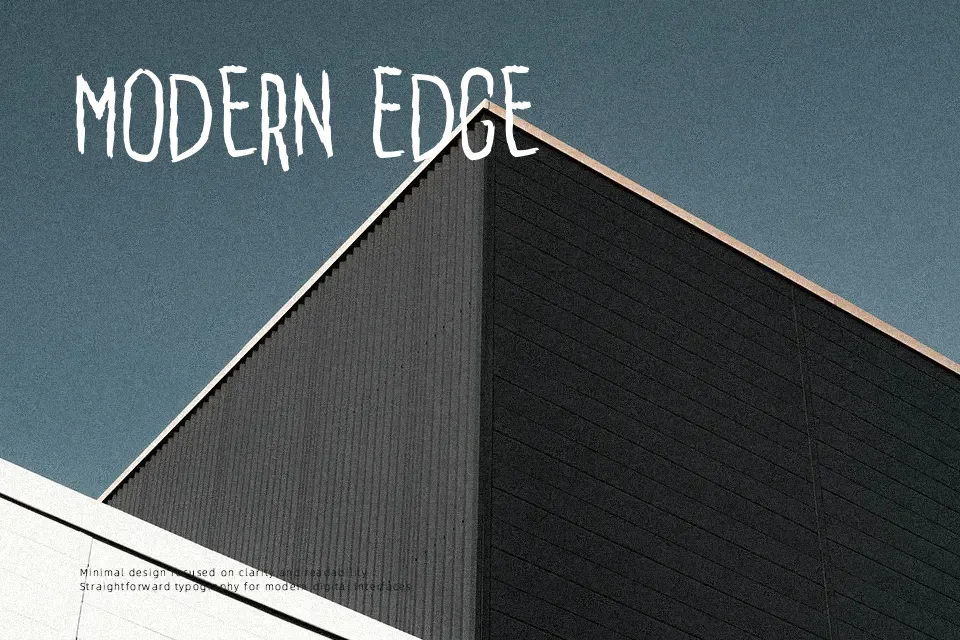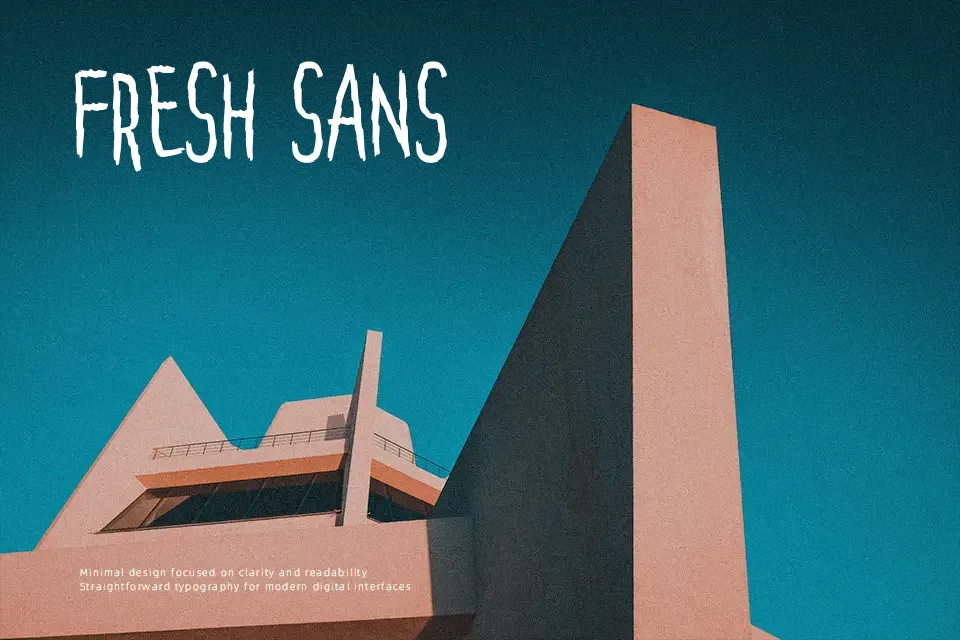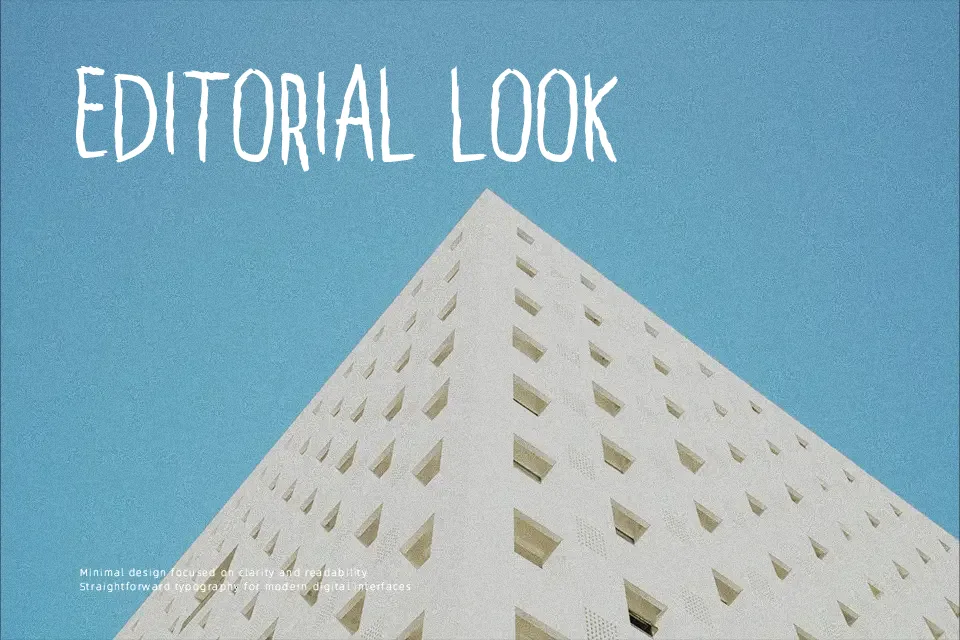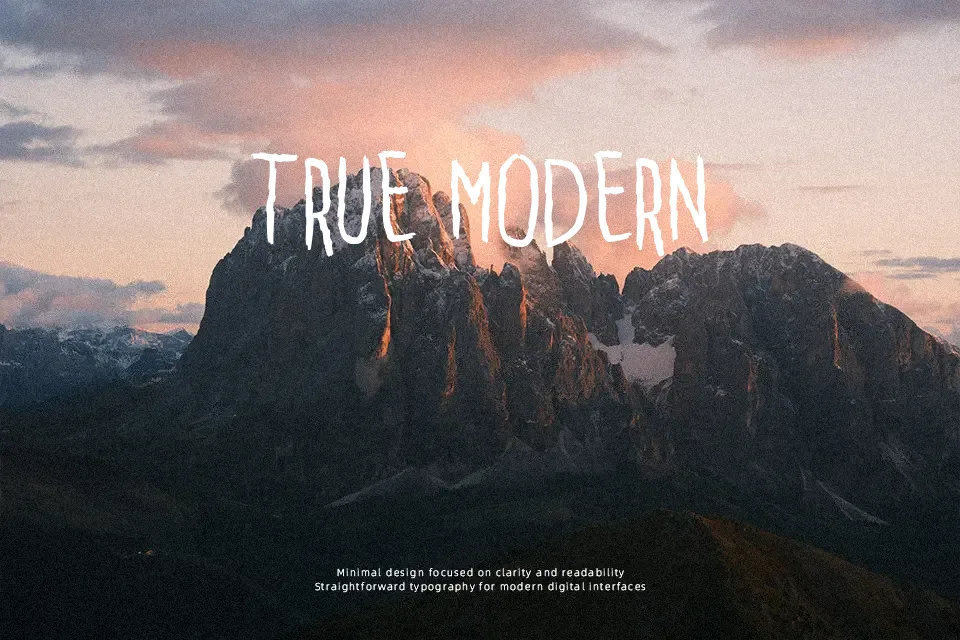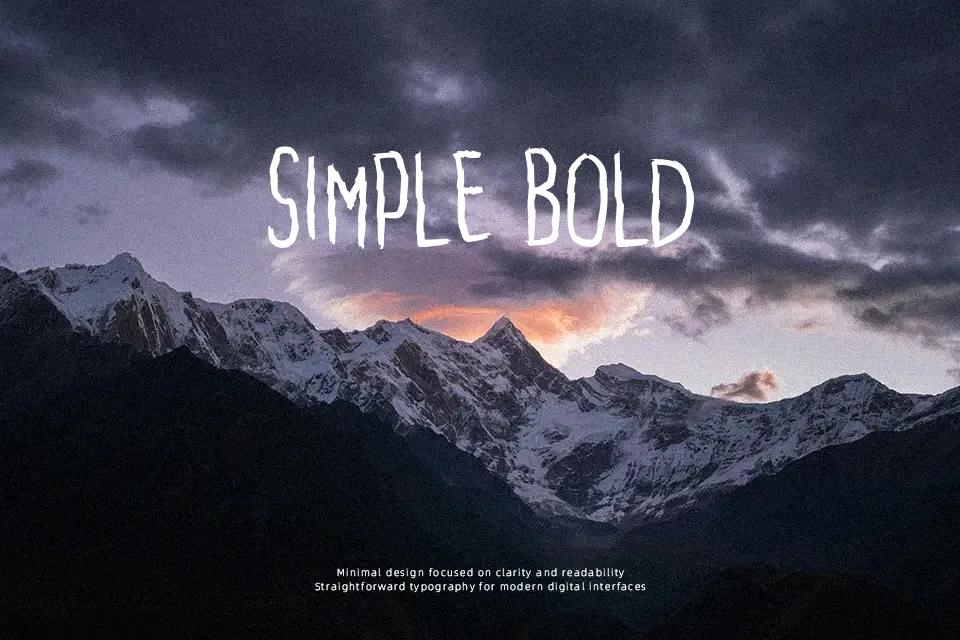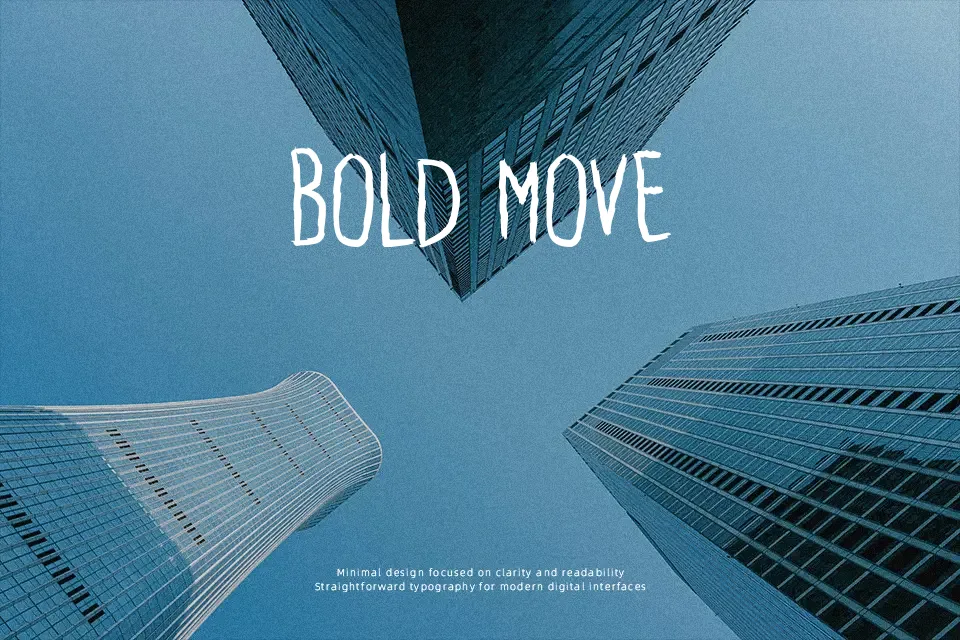
Penakut Font
Designed by Adien Gunarta
Penakut Font works best as a large, attention-led display face. The letterforms combine uneven brush-style strokes, pointed terminals, and distressed edges that create a raw, unsettling rhythm. Its uppercase characters appear narrow and energetic, while the irregular contours give short words a hand-rendered presence. Spacing is compact enough to hold a headline together, though the textured shapes need room and scale to remain distinct. It is a practical choice for horror titles, dark event posters, or dramatic cover artwork. The decorative stroke treatment becomes harder to read in small captions and extended text.
Best For: horror movie posters,Halloween party graphics,dark music cover titles,haunted attraction signage
Not Ideal For: long paragraph text,small interface labels,corporate reports,technical manuals
Perfect for film, halloween, and headline, with a dark and brush style.